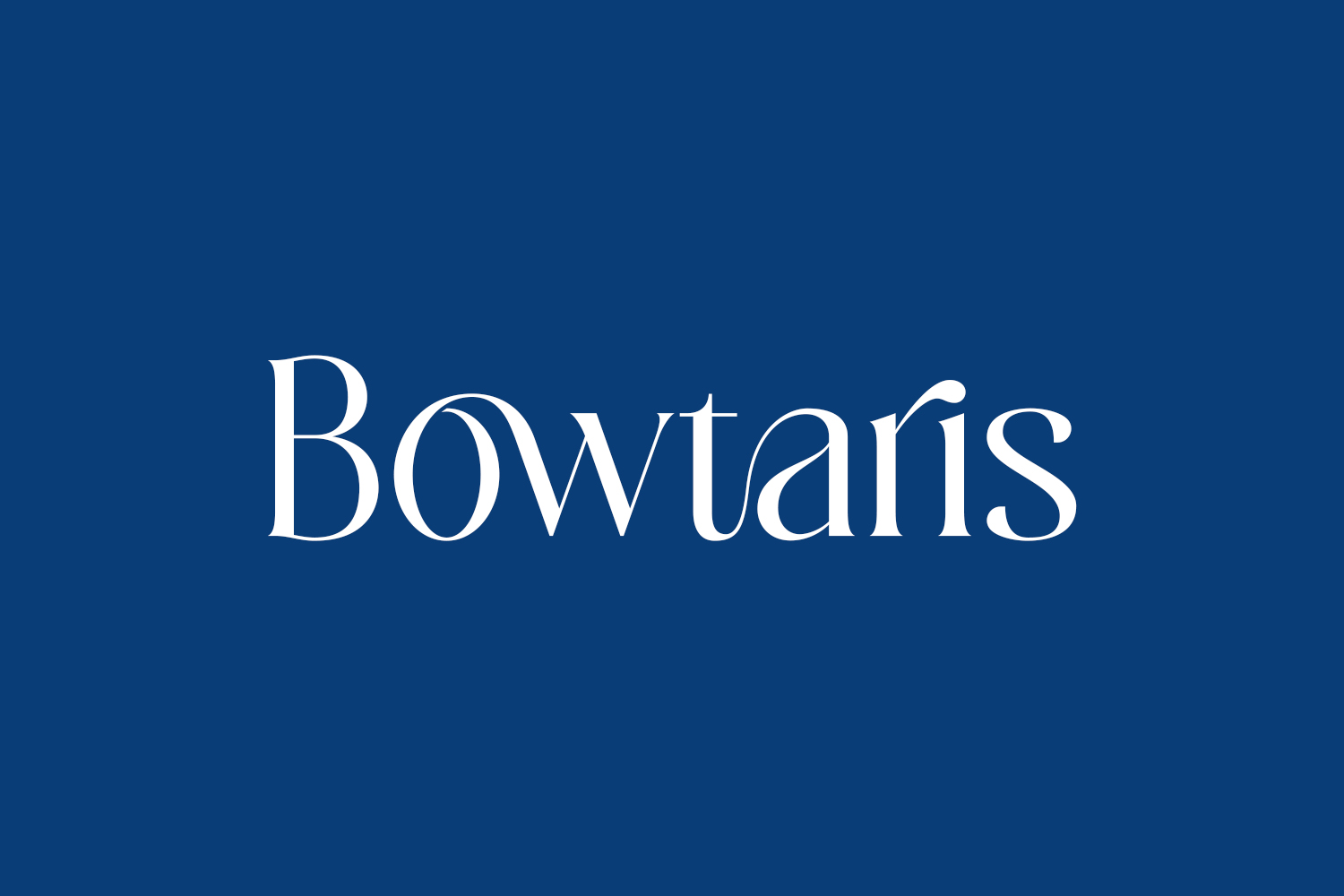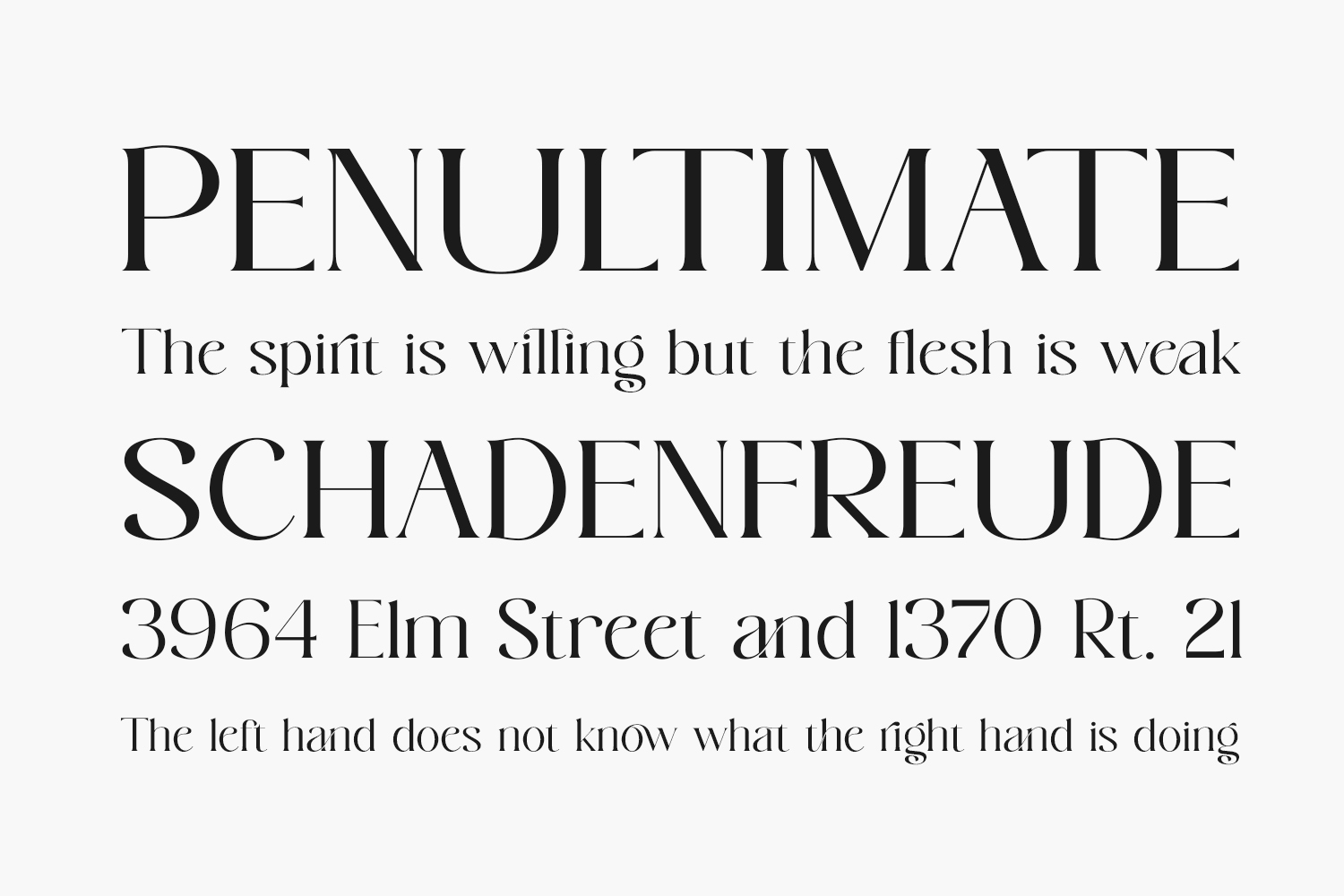
Introducing Bowtaris Free Font: a captivating vintage serif font exuding elegance and charm. Its timeless design evokes traditional typefaces of yesteryears, adding a touch of nostalgia to your projects. Download the font for free if you need it for personal use or purchase the full version for commercial use.
Designed by ToniStudio